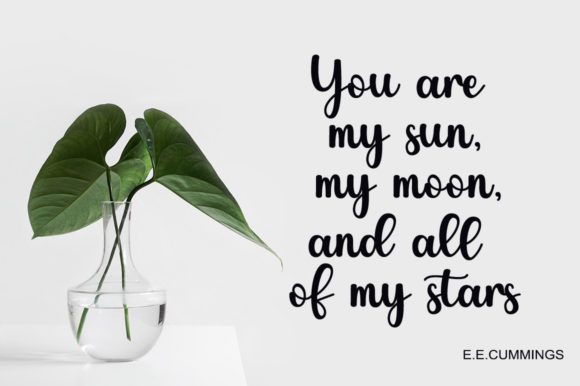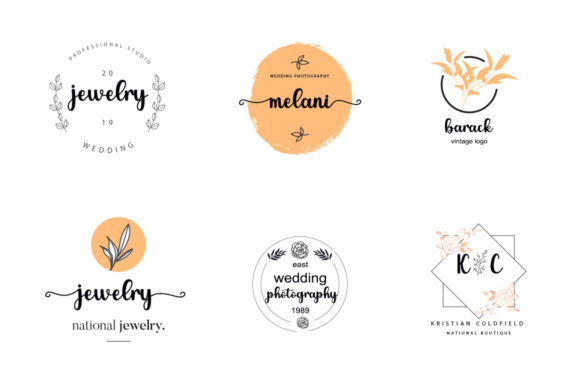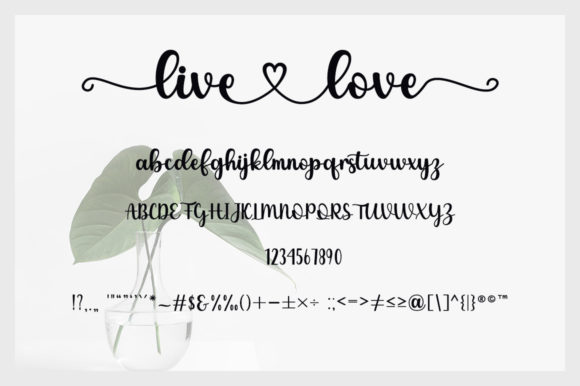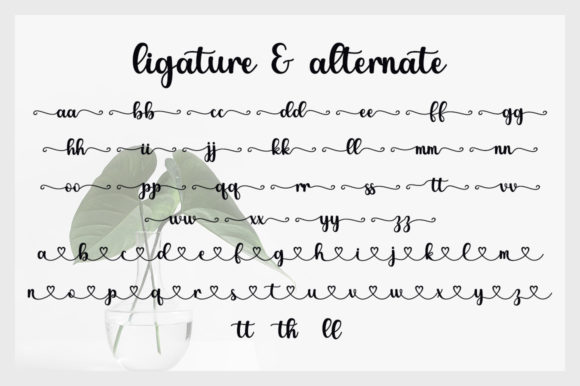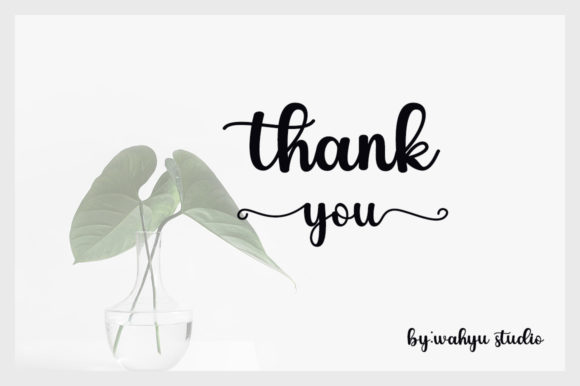
Introduction to Livelove Font
As a designer, have you ever found yourself scrolling through your inspiration board, searching for the perfect font to elevate your next creative project? You know, that moment when everything comes together, and your design goes from good to great? That’s exactly what I experienced when I stumbled upon the Livelove Font.
With its romantic and sweet calligraphy style, this font is sure to add a luxury touch to any design project. The Livelove Font’s unique characters that dance along the baseline are not only visually stunning but also incredibly versatile. Whether you’re working on a wedding invitation, a birthday card, or a branding project, this font is sure to bring a touch of elegance and sophistication.
As a valuable resource for designers, the Livelove Font is PUA encoded, making it easy to access all of its amazing glyphs and ligatures. Plus, with a transparent background, you can seamlessly integrate it into any design. And the best part? It’s available for free download, making it an invaluable addition to your design toolkit.
Key Features of Livelove Font
- High-quality design resource ideal for creative projects, offering a unique and elegant style.
- Transparent background option allows for seamless integration into designs with complex backgrounds.
- Available in a range of sizes, including small caps, making it suitable for various design applications.
- Designed at 300 DPI resolution, ensuring crisp and clear text output.
- Unique characteristics include subtle flourishes and elegant lines, making it perfect for high-end design projects.
Honest Review: Livelove Font
As a designer, I’m always on the lookout for high-quality design resources that can elevate my creative projects. Recently, I came across the Livelove Font, and I’m excited to share my honest review with you.
What works well: ✨ The Livelove Font has a unique and modern design that makes it perfect for a variety of creative projects. I love how it can be used for both digital and print designs. The font is also highly customizable, making it easy to adjust to suit your design needs.
Some of the key features of the Livelove Font include:
- Transparent background, making it easy to use with any design element.
- High-quality design that is perfect for both digital and print designs.
⚠️ One limitation of the Livelove Font is that it may not be suitable for all types of designs. For example, it may not be the best choice for designs that require a more classic or traditional look.
Overall, I’m really impressed with the Livelove Font. It’s a great design resource that can add a unique touch to your creative projects. If you’re looking for a modern and customizable font, I would definitely recommend giving the Livelove Font a try.
Tips for Getting the Most Out of Livelove Font
For high-quality results, use Livelove Font on a transparent background to create a seamless design. Experiment with different font sizes and styles to find the perfect fit for your creative project.
Livelove Font is ideal for creating eye-catching titles, headings, and captions in various design projects. It’s also great for branding and marketing materials, such as business cards, brochures, and social media graphics.
Alternatives to Livelove Font
The Great Vibes Font is a beautiful, elegant script font that is perfect for creative projects that require a touch of sophistication. It’s available for free download and is ideal for designs that need a high-quality, handwritten feel. Great Vibes Font is suitable for wedding invitations, quotes, and other designs where a romantic vibe is desired.
When compared to Livelove Font, Great Vibes Font has a more refined and polished look, making it a better choice for formal designs. However, Livelove Font has a more playful and whimsical feel, making it suitable for more casual and creative projects.
Yes, the Livelove Font has a transparent background, making it ideal for use with images or videos. This feature allows you to create seamless and professional-looking designs for your creative projects.
Q: Is the Livelove Font suitable for high-quality print projects?
Yes, the Livelove Font is designed to meet high-quality print standards. With its crisp and clear typography, it’s perfect for use in business cards, brochures, posters, and other print materials. However, please note that the font’s quality may vary depending on the printing method and paper quality.